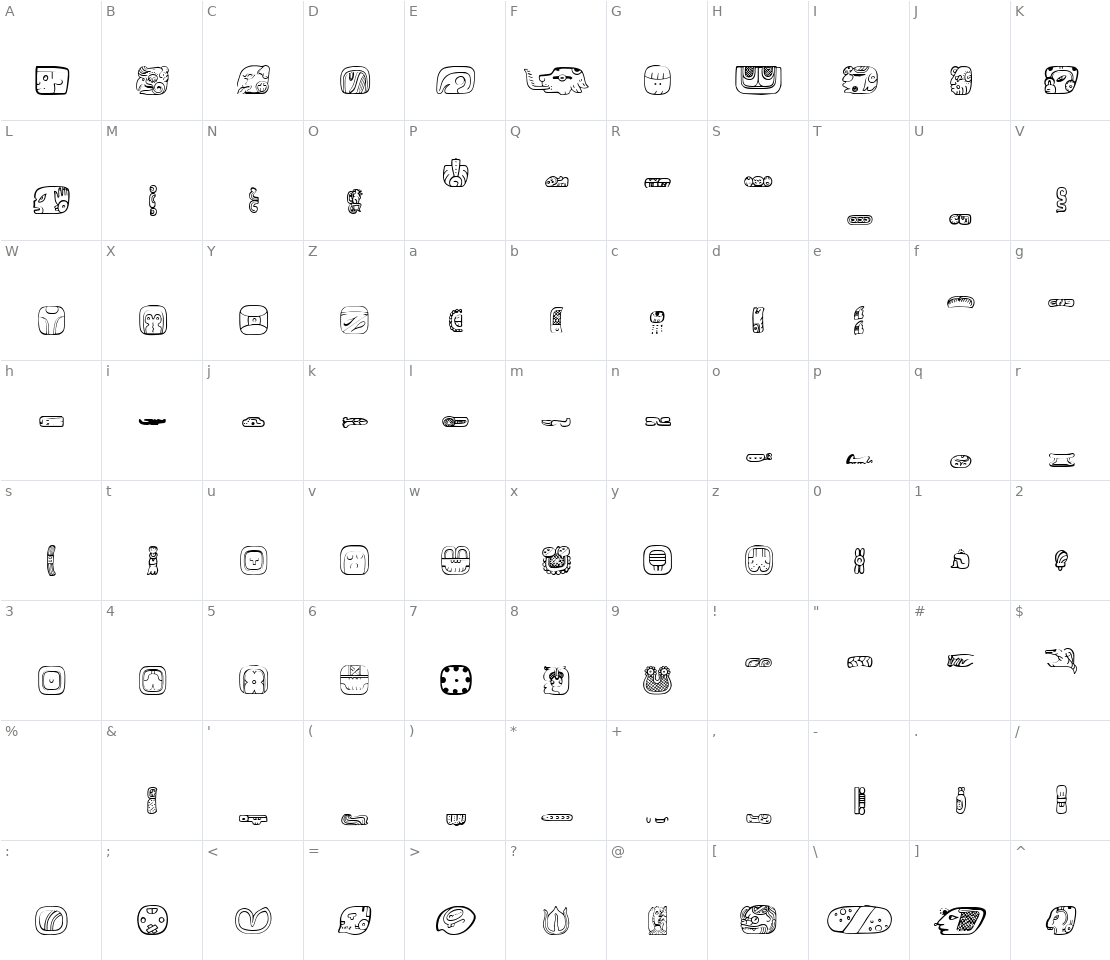
Meso America
Meso America is a decorative glyph font from Intellecta Design that draws directly from Mayan and Aztec visual traditions, offering a set of symbols and pictographic forms inspired by pre-Columbian art. The characters feel carved and deliberate, with the dense geometric patterning typical of Mesoamerican stonework and codices. Useful for cultural projects, themed design work, borders, and ornamental elements where you need authentic-looking ancient iconography rather than standard letterforms.